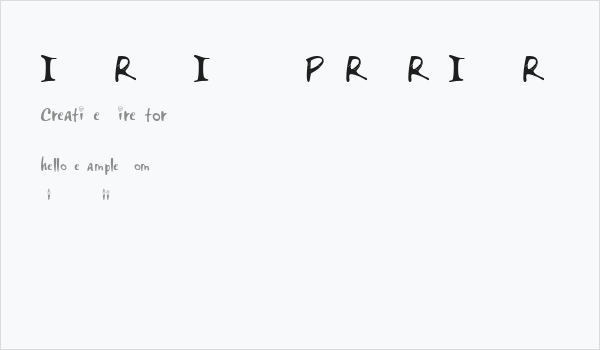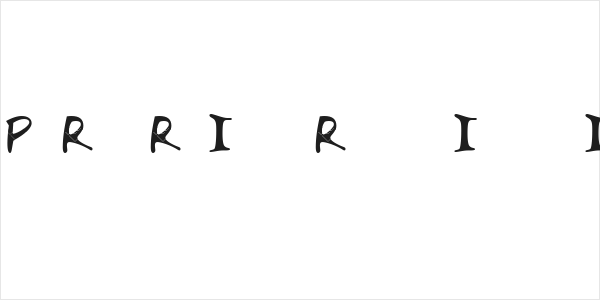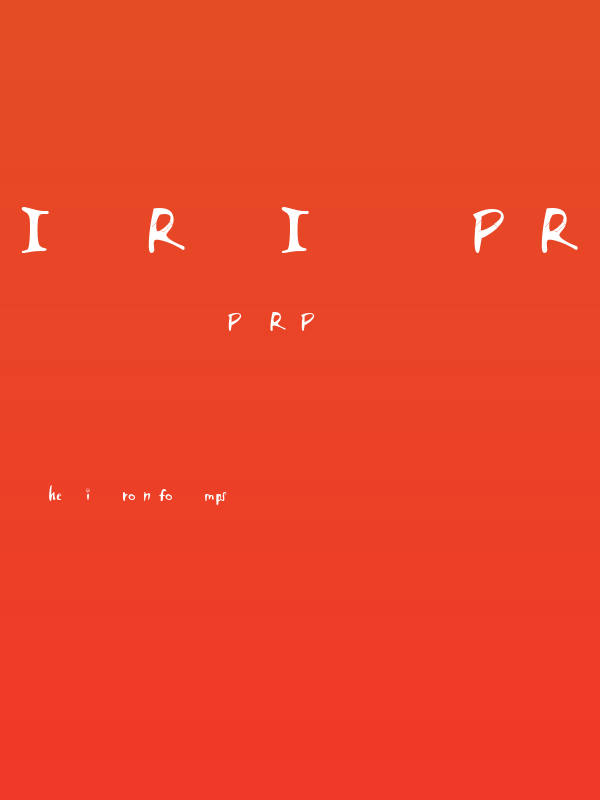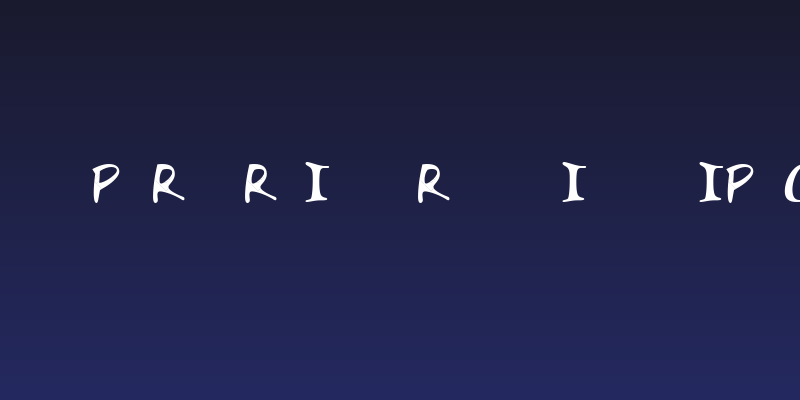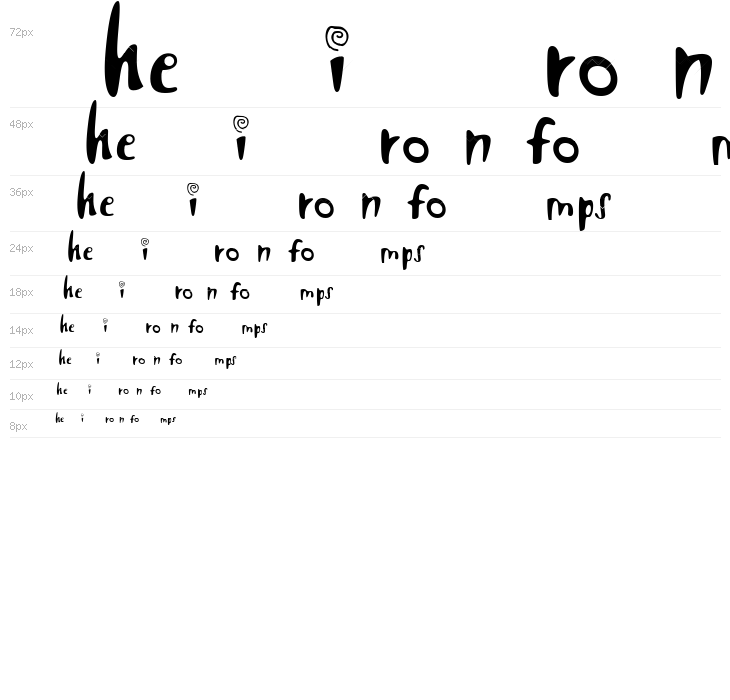
INTERNATIONAL PERFORMING RELATIONSHIP CENTER FONT Font
INTERNATIONAL PERFORMING RELATIONSHIP CENTER FONT Description
This playful and whimsical font features a unique, hand-drawn style with a mix of uppercase and lowercase letters. The characters are irregular and quirky, with some letters incorporating decorative elements like swirls and stars. The font has a lively and informal appearance, making it suitable for creative and fun projects. The strokes vary in thickness, adding to its dynamic and energetic feel. Special characters are creatively designed, enhancing the font's overall playful theme.